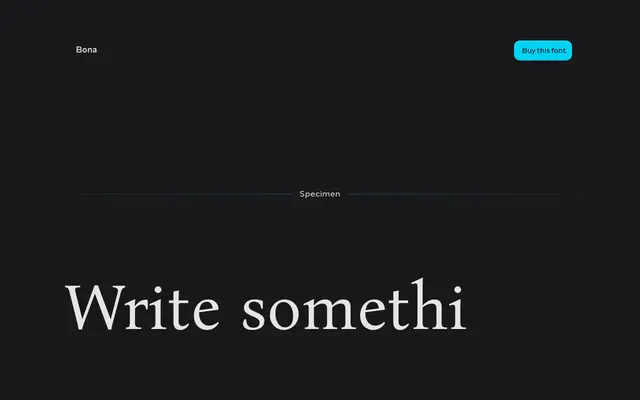
Bona
Capitalics · Andrzej Heidrich, Mateusz Machalski · 1971
A digitisation of Andrzej Heidrich's 1971 Polish serif, expanded into a full family including display variants by Mateusz Machalski at Capitalics.
Originally drawn by Andrzej Heidrich, the designer responsible for Polish banknote typography, Bona was digitised and extended by Capitalics into a three-subfamily system. Bona Nova, the text family, is distributed free under an open licence and spans Regular, Italic and Bold. The display range splits into Bona Sforza and Bona Title, each with three weights, giving the family reach from continuous text to large-scale typographic work.
Bona is a classic triad serif originally designed in 1971 by Andrzej Heidrich, the designer of Polish banknotes, with a humanist serif character typical of mid-twentieth-century Central European type design. The display variants suggest a refined, calligraphic serif tradition.